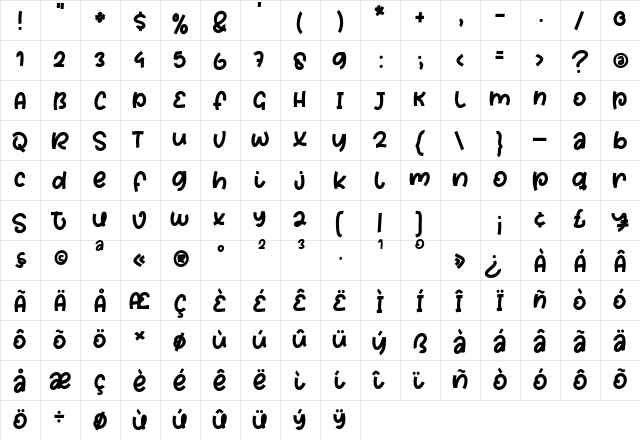
Fresh Lemon Regular
| Designer | Muh Aswar By Azetype Studio |
Design Context for Fresh Lemon Typeface
Fresh Lemon is a composed and adaptable typeface that performs quietly and consistently across a wide range of design contexts.